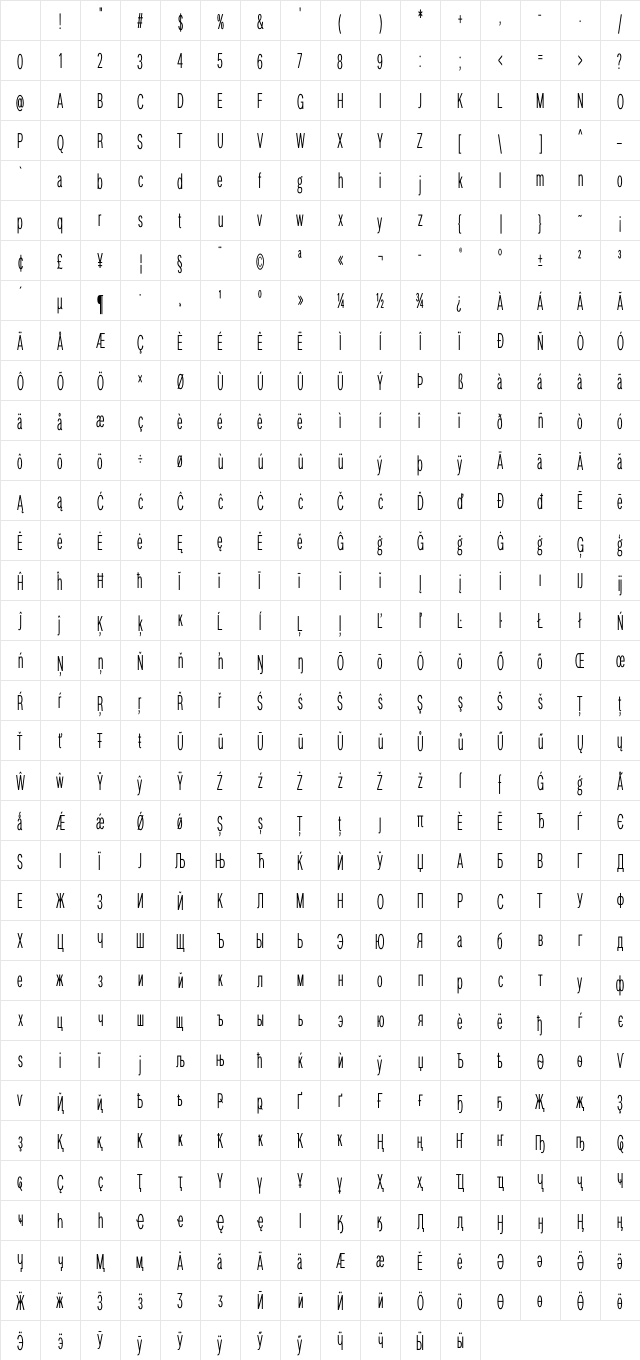
LT Amber Compressed is a composed and adaptable typeface that performs quietly and consistently across a wide range of design contexts. Its slender proportions lend an understated elegance to any composition.